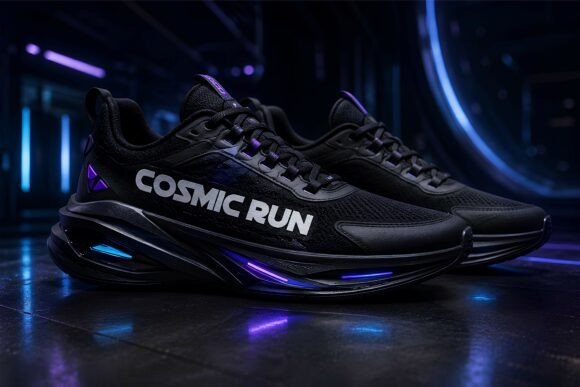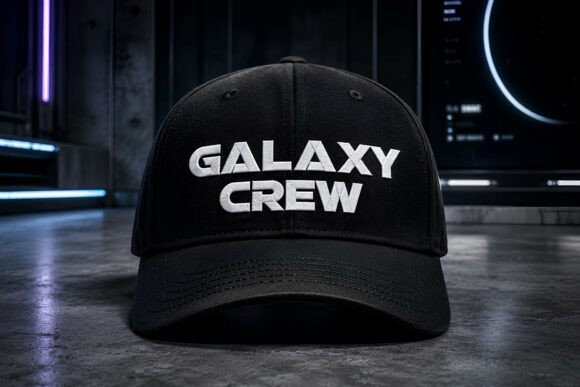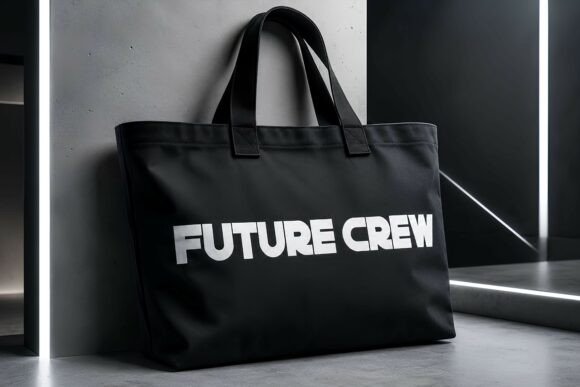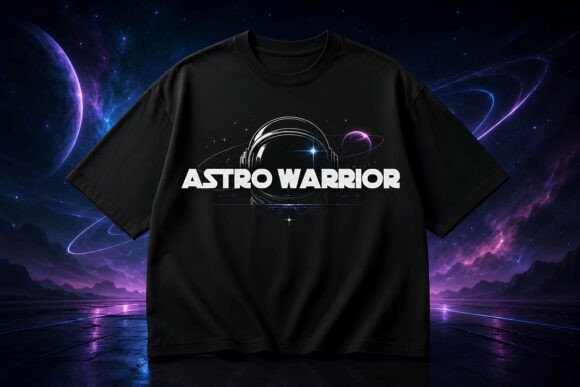
The Cosmic Inspiration Behind Galaxy War Font
Do you ever find yourself stuck in a creative rut, scrolling through design inspiration boards, and suddenly, a single font catches your eye? That’s exactly what happened to me the other day. I stumbled upon a futuristic sci-fi design, and the bold, geometric font used in the title was the perfect combination of style and power. The more I looked at it, the more I wanted to learn about the font behind it – Galaxy War Font.
As it turns out, Galaxy War Font is a powerful tool for designers, gamers, and creatives alike. Its strong, dynamic look makes every design feel bold, powerful, and high-tech. Whether you’re working on a space-themed project, a gaming poster, or a futuristic merchandise design, Galaxy War Font is the perfect choice to add a cosmic vibe to your work.
Galaxy War Font Key Features
- Font Style: Galaxy War Font is a futuristic and sci-fi themed font, ideal for games, movies, and other applications requiring an otherworldly feel.
- Resolution: Galaxy War Font is designed to be scalable, making it suitable for use in various resolutions, from low-resolution graphics to high-definition displays.
- Unique Characteristics: The font features a unique blend of geometric shapes and futuristic elements, creating a truly distinctive and eye-catching visual effect.
- Characters and Glyphs: Galaxy War Font includes a wide range of characters, including Latin, Cyrillic, and Greek alphabets, as well as various symbols and punctuation marks.
Galaxy War Font Review
Overall, I think Galaxy War Font is a solid choice for any sci-fi or futuristic design project. ✨ The font’s unique blend of digital and cosmic elements makes it stand out from more traditional font styles. I particularly like the way the font’s bold lines and geometric shapes evoke a sense of modernity and technological advancement.
The font’s versatility is another major plus. ✨ It can be used in a wide range of applications, from logos and headings to body text and captions. I’ve also found it to work well in both uppercase and lowercase settings, making it a great option for designers who want a consistent look and feel across their design.
- ⚠️ Limited character set: Galaxy War Font doesn’t include a full character set, which can be a problem for designers who need to use accents or special characters.
- ⚠️ Not suitable for small text: The font’s bold lines and geometric shapes can make it difficult to read in small text settings, such as in body text or captions.
Overall, I think Galaxy War Font is a great choice for designers who need a unique and modern font for their sci-fi or futuristic projects. While it may have some limitations, its versatility and unique style make it a great option for designers who want to stand out from the crowd.
Galaxy War Font: A Practical Application Guide
Use Galaxy War Font to add a futuristic or sci-fi touch to your designs. It’s perfect for creating logos, posters, or presentations related to space, technology, or gaming. Experiment with different font sizes and colors to achieve the desired effect.